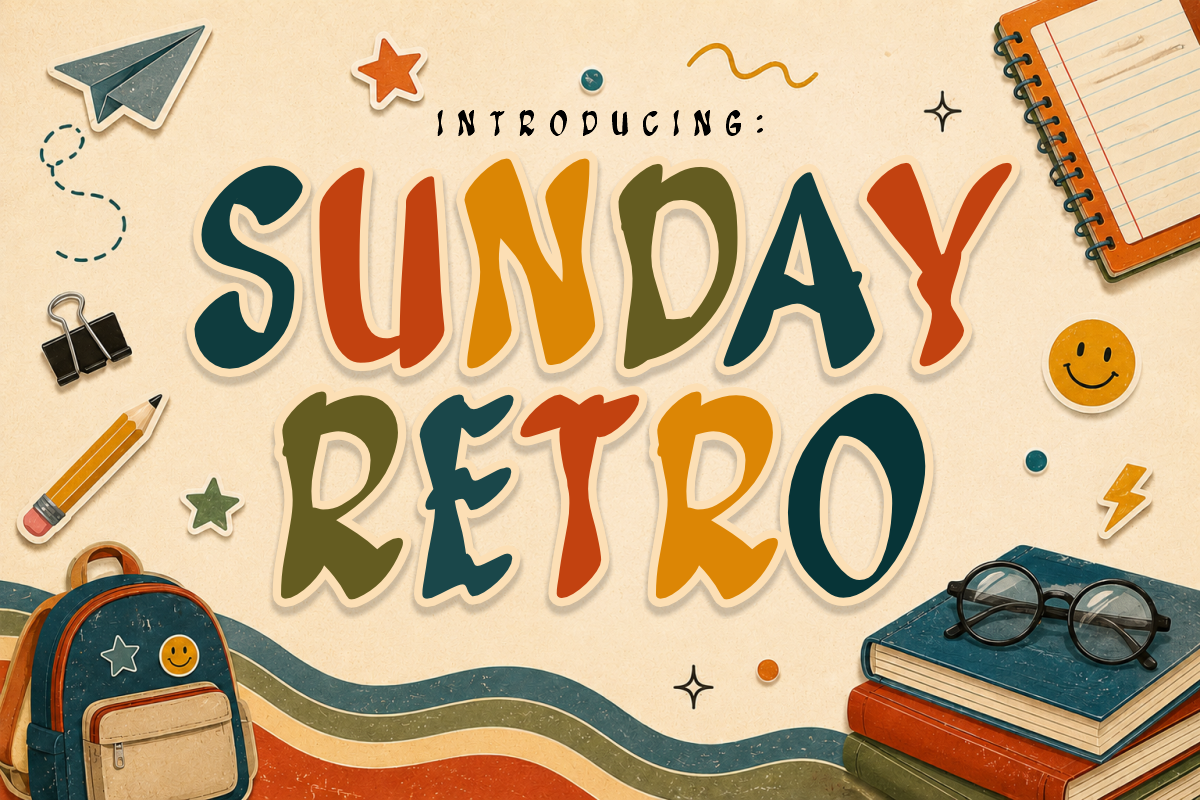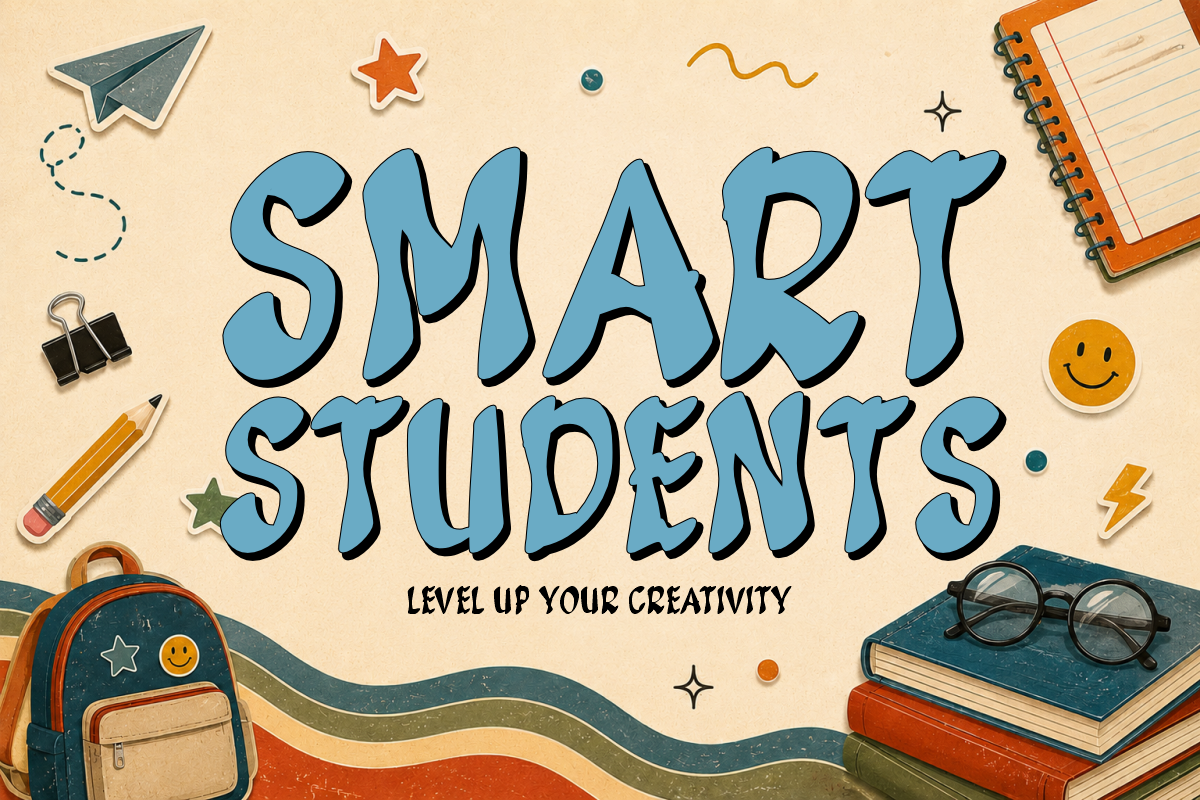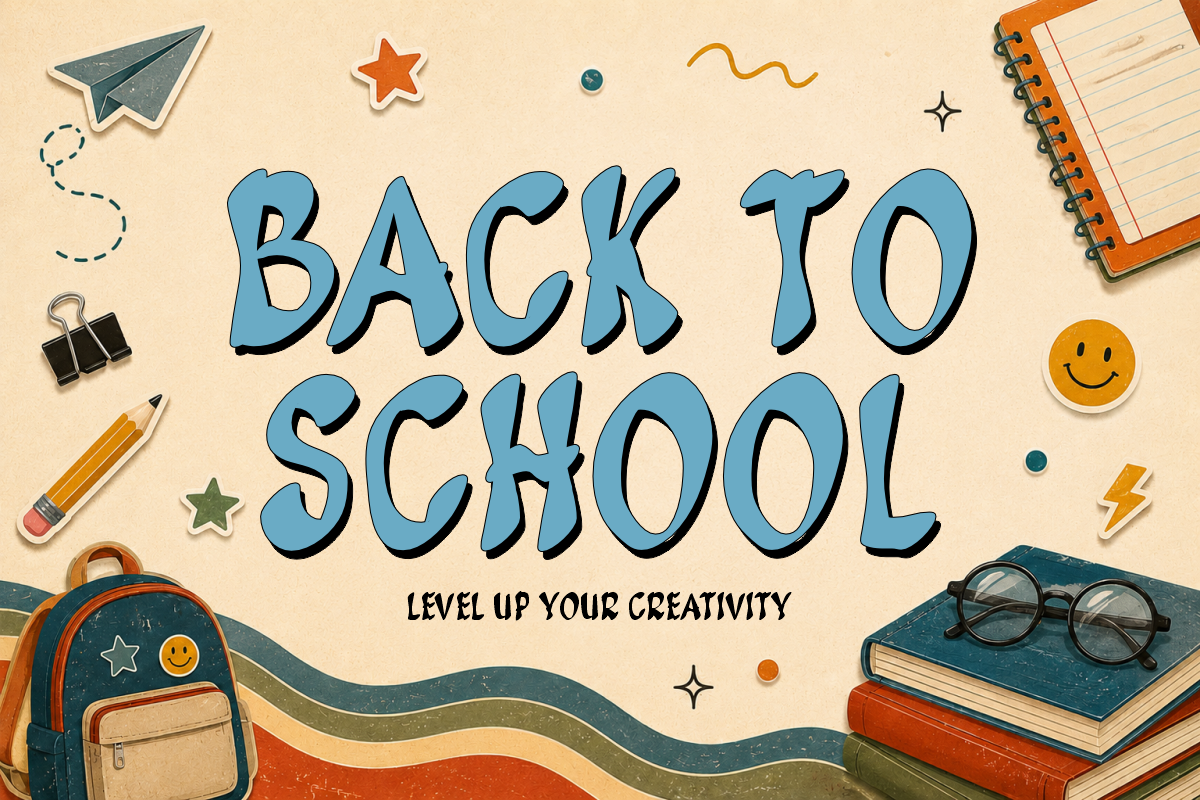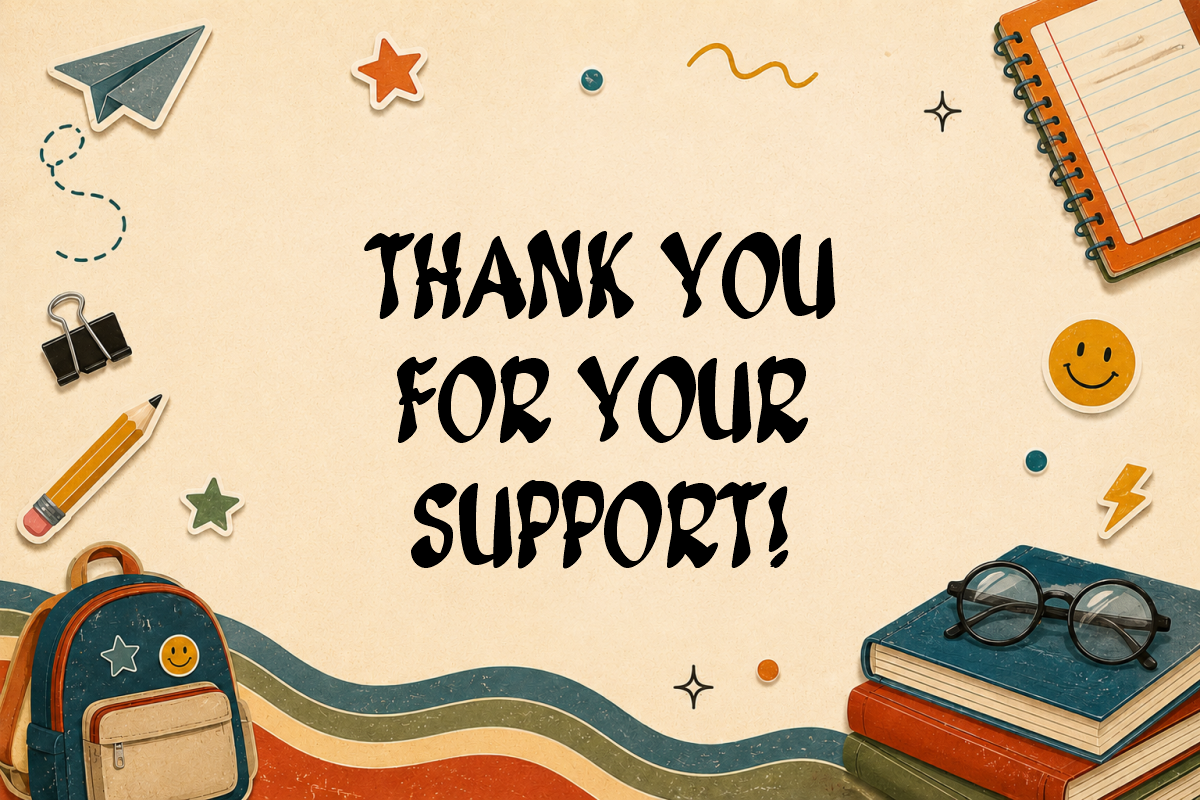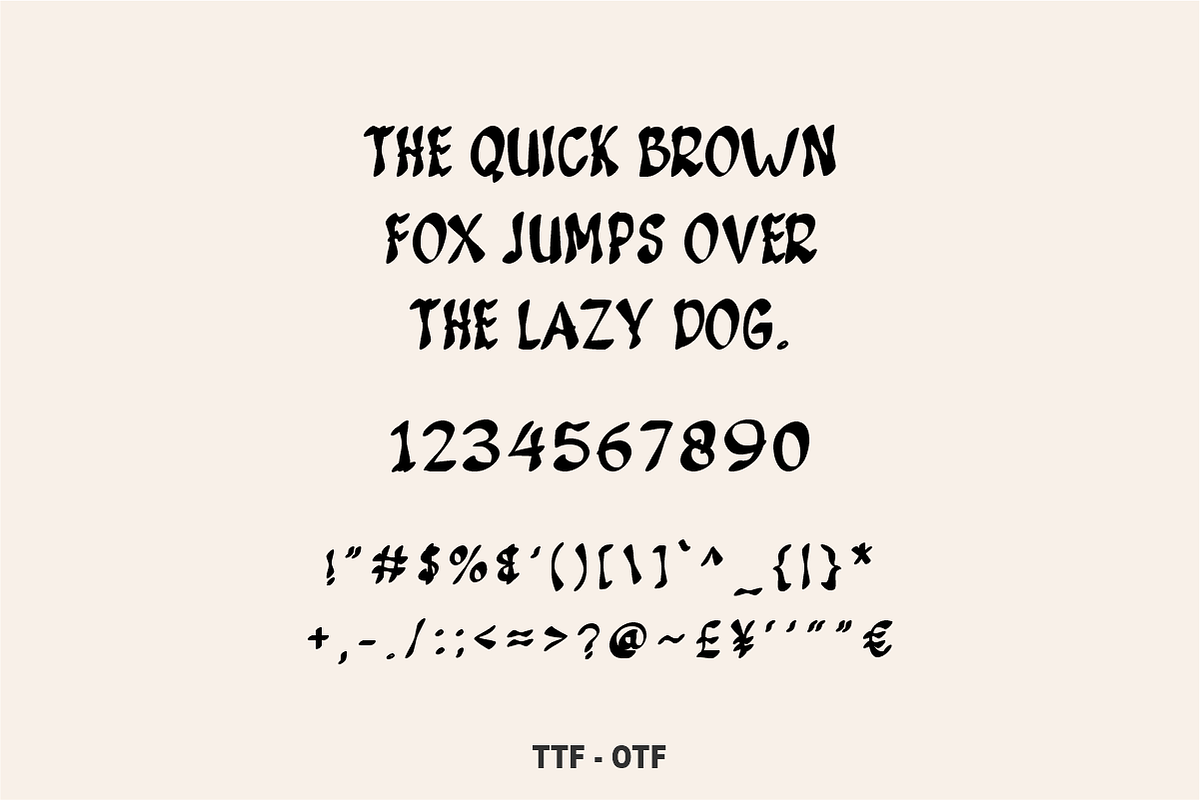
Sunday Retro - Groovy School Font
Sunday Retro - Groovy School & Craft Font
Sunday Retro is a playful, 70s-inspired display font featuring wavy, hand-drawn letterforms with a cozy sticker-style outline. Packed with warm nostalgia and cheerful back-to-school energy, this charming vintage font brings a fun, creative pop to classroom decor, retro merchandise, and craft projects. Every character is cleanly vectorized to guarantee high-resolution prints and smooth, effortless cutting on Cricut and Silhouette machines.